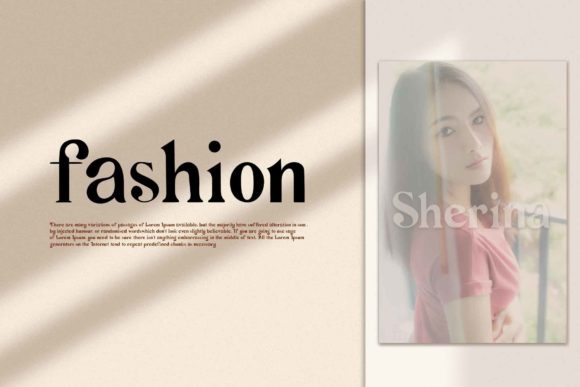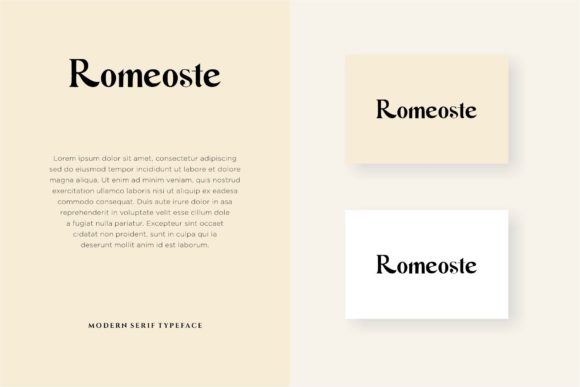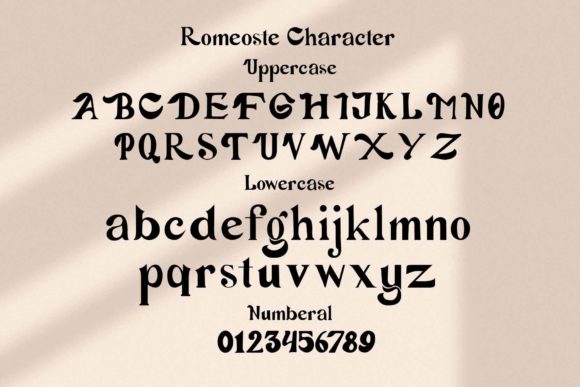
Introduction to Romeoste Font
Remember that moment when you’re working on a creative project and you just can’t seem to find the right font to bring your design to life? The perfect font can make all the difference, elevating your design from good to great. That’s where Romeoste Font comes in – a stunning, high-quality serif font that’s sure to captivate your audience.
With its elegant and trendy design, Romeoste Font is the perfect addition to any design project, whether you’re working on a formal brochure or an informal social media campaign. Its versatility makes it a valuable resource for designers, allowing them to create beautiful and refreshing designs with ease.
Key Features of Romeoste Font
• High-quality design: The Romeoste Font is a meticulously crafted typeface designed for use in creative projects, offering a sophisticated and elegant look.
• Transparent background: This font features a transparent background, making it perfect for use on any background color or image.
• Unique characteristics: The Romeoste Font features a unique blend of modern and classic elements, making it an excellent choice for designers looking to add a touch of sophistication to their creative projects.
• Design versatility: The font is highly versatile and can be used in a variety of design contexts, from logos and branding to typography and graphics.
Honest Review: Romeoste Font
I recently came across the Romeoste Font, and I’m excited to share my honest review. As a designer, I’m always on the lookout for high-quality fonts to elevate my creative projects.
• High-quality design that’s perfect for creative projects ✨
• Transparent background for easy integration with design elements
• Some users may find the font’s style too bold or overwhelming ⚠️
• Not suitable for all design applications, such as academic or formal documents
Overall, the Romeoste Font is a solid addition to any designer’s toolkit. While it may not be perfect for every project, its unique style and transparent background make it a great resource for creative designers looking to add some flair to their work.
Romeoste Font is ideal for designing logos, brochures, business cards, and other marketing materials. Its transparent background makes it easy to overlay on images or use as a standalone design element.
Tips for Getting the Most Out of Romeoste Font
To get the most out of Romeoste Font, experiment with different font sizes, colors, and styles to create unique and eye-catching designs. Use it in combination with other design elements, such as images and graphics, to create a cohesive and visually appealing project.